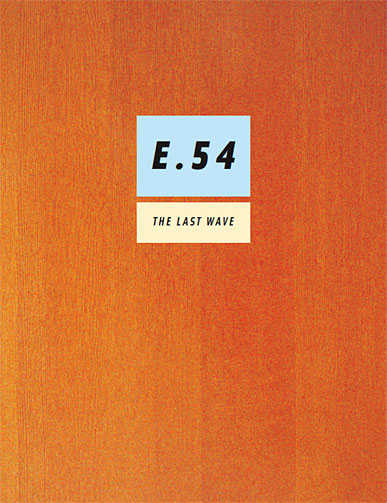
Essay by John Downer
Zuzana Licko's latest typeface family, Solex, is her first release in nearly two years. It is a more conservative and studious exploration of the industrial sans serif genre and its past than she has undertaken before. Licko has allowed herself to be lured by ideas that have interested many a type designer while maintaining a footing in her own ideas and using her own methods to express them. Readers who are familiar with her work will also see that Solex is in keeping with Licko's curious name choices. She has a penchant for giving her typefaces one-word names that end with x - Elektrix, Lunatix, Matrix, Triplex, Variex...
Seasoned type designers tend to fall back on old ways. Some habits are evident in the design work and some are not. Much has to do with the way a type designer perceives letterforms and brings them to life as type. In Solex, traces of Licko's recent sans serif types, such as Base and Tarzana, can be seen. There are some very clear carry-overs, such as the way Licko tends to taper or turn the stub of a stem where it sprouts from a bowl, and the way she chooses to emphasize distinct geometric verticality in the shapes of counters. Both are familiar themes.
Inevitably, when a type designer has already designed several sans serif faces, personal biases become noticeable. In any survey of this sort, a certain amount of redundancy is to be expected. It's practically unavoidable. This is typical, too, when an artist uses a limited palette, as Jeffery Keedy observed about Licko's work in the foreword to Emigre (The Book) (1993).
Since sans serif types are unadorned and spare, they normally allow for fewer design possibilities than serif types. This tends to be true in the limited domain of text, but not in the larger domain of display, which is where and why sans serif types were born.
When designing a sans serif type specifically for text, there is not enormous latitude for experimentation, partly because there are no serif structures to design and test. Thus, there are altogether fewer details than one finds in a serif type. As a result, actual innovations are rare and repetitions are commonplace. Paradoxically, though, the array of sans serif types that could be considered marginally suitable for text is wider than the array of serif types considered marginally suitable for text - particularly with respect to weight, width, and proportion.
Because of their display origins, sans serif types are less bound to scholarly custom than types cut purposely for extended texts. And, even though sans serif types sometimes do prove useful for short blocks of continuous reading, sans serif types are not infinitely useful for long tracts. They're not deeply rooted in the larger reading tradition. After all, sans serif types have existed for barely one-third of typographic history. They are still young, by antiquarian standards. Yet, despite their youth and their seemingly limited range of traditional uses, evidently, no one designer of sans serif types has explored all corners of the existing territory. Moreover, few designers have independently explored as many corners as Licko has, and even fewer have personally mapped as many new ones.
The first known specimen of sans serif type appeared in 1816, in England. It was called "egyptian" - not "sans serif," as we would refer to it today. Subsequent sans serif types issued by English foundries were called "grotesque." Similarly in Germany, early sans serif types were known as "grotesk." In America, serifless types came to be known widely but confusingly as "gothic." It was a poor choice of words for the American typographic lexicon, since the term also means "blackletter" - often dubbed "Old English" in the vernacular. (News Gothic and Franklin Gothic, two sans serif staples of the American newspaper industry for the better part of the last hundred years, are far from being Teutonic in origin. They could surely never be mistaken for the printing types Gutenberg used.)
Grotesque (sans serif) types have a checkered past. They are among both the most imaginative and the most imitative faces cut for either text or display typography. Unlike the first roman types, which were made specifically for book printing, grotesque faces were made for use in advertising. Judging from old type specimen books, the range of deviation from prior typographic forms was greater than the range of outright mimicry. It is important to remember that in the first part of the 19th century, grotesques constituted a new category of types: a veritable frontier for adventurous type designers. It was a field day for the peddlers of printed publicity. Referring to, and often copying, the early successful models was common practice, but there was still plenty of ground for new ideas to be tried.
In a sense, Solex marks an intersection of ideas that grew from two or three separate periods of development over the past hundred years; yet Licko, in her investigation of formal design possibilities for Solex, referred to relatively few historical models. Inspiration for Solex reportedly came from two principal sources: one general and one specific.
Alternate Gothic
The general source is a class of slightly condensed, rectangular, grotesque types made for newspaper ads and handbills. Most were cut after 1885, when an American inventor, Linn Boyd Benton, introduced and patented a pantographic engraving machine to cut punches and matrices. Alternate Gothic (1903), a popular stand-alone typeface, is a prime example of one style of grotesque produced in such a manner. Standard Gothic (1896), and News Gothic (1908), by extension, are both examples of series that included condensed styles that likewise became popular and lasted well into the middle years of the 20th century. Later twentieth century examples include faces such as the condensed members of big, conceptual families like Eurostile, Folio, and Univers. Licko's typeface Modula Sans, modeled on a condensed oval; and Oblong (designed with Rudy VanderLans), a slab serif face modeled on a condensed rectangle, are worth mentioning, as well. They can be seen as Emigre's first steps in the direction of Solex, though they were both based on earlier bitmap fonts, not on metal typefaces, per se.
Left to right: Lo-Res TwentyTwo Narrow, Modula, Oblong, and Solex.
Bauer Topic (Steile Futura)
The specific source of inspiration for Solex dates from the 1950s. It is a typeface called "Bauer Topic" (aka, "Steile Futura") designed by Paul Renner, who also designed the larger and more influential Futura series more than 20 years earlier. Topic, however, bears little resemblance to other members of the Futura family. Futura is a sans serif typeface series of classical, yet geometric, proportions and widths. Topic is a design that has characters of relatively even widths. Renner sought to replace the Roman widths with mechanical looking, static ones. It was an attempt to make his type modern and modular. A direct descendent of Bauer Topic is a digital font family called "Tasse" (Font Bureau, 1994). Tasse is essentially a large set of weight and width variations on the upright version of Bauer Topic. Solex, by comparison, is a font family that includes both roman and italic variants. In Solex, Licko has preserved the lone foot serif introduced by Renner at the base of many italic characters: a, d, h, k, l, m, n, u; and has added others where Renner did not: i, x. Licko has also introduced a head serif on letters where Renner put none: i, l, x. The added head serifs give Solex a trait often associated with monospaced fonts and typewriter faces, and give the i, l, and x two apiece.